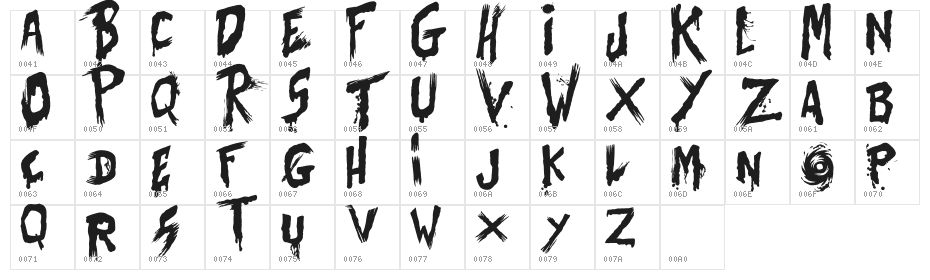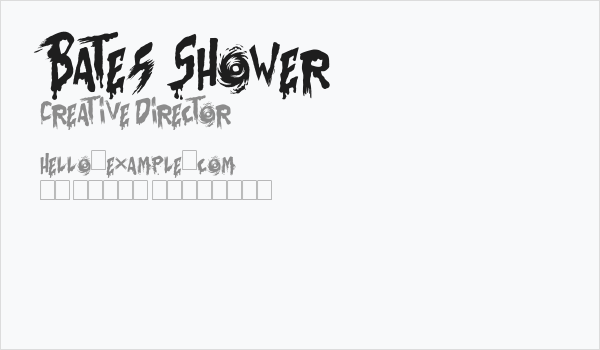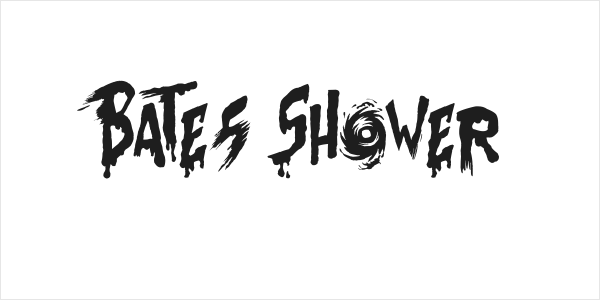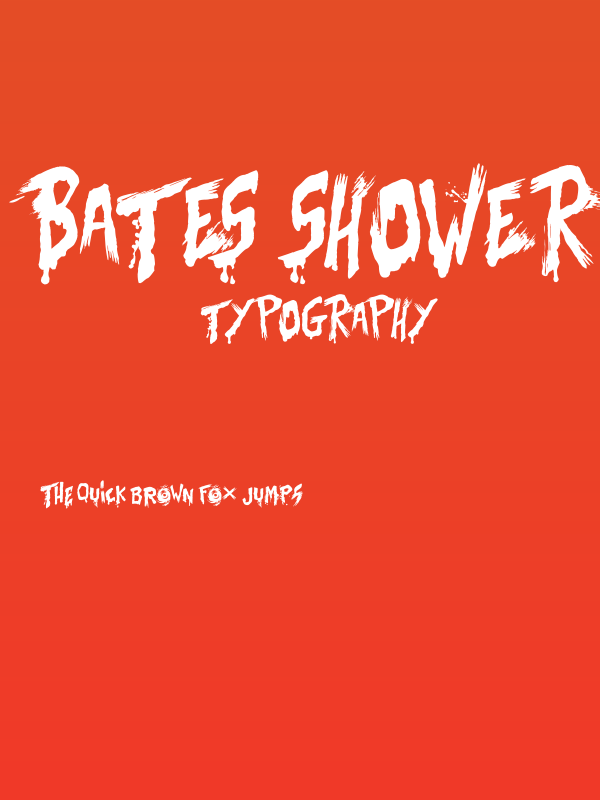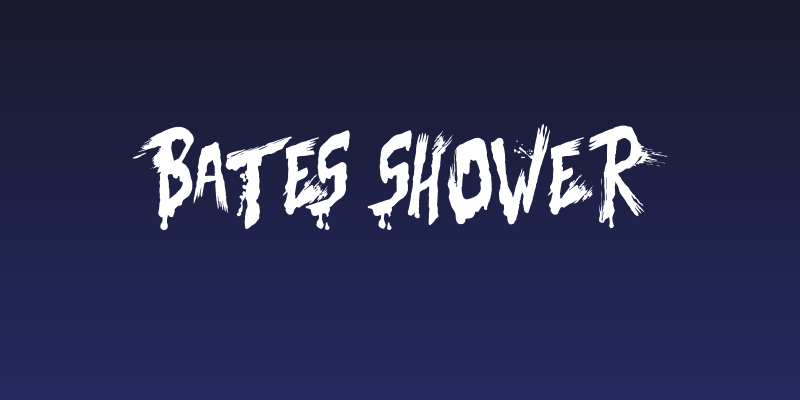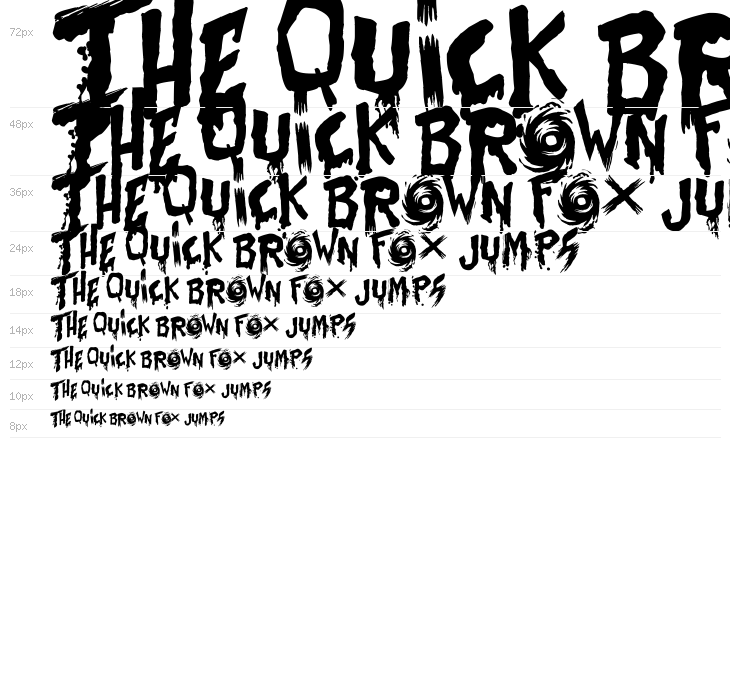
Bates Shower Font
Bates Shower Description
This font exhibits a bold, jagged, and distressed appearance, reminiscent of horror or thriller themes. The characters are irregular and appear as though they have been scratched or painted with a rough brush, giving them a dynamic and chaotic feel. The uppercase and lowercase letters share a consistent style, with exaggerated strokes and uneven edges, enhancing the font's dramatic and unsettling aesthetic. The numbers and special characters follow the same design principles, ensuring a cohesive look across all elements. This font's unique style makes it particularly suitable for projects that require a sense of urgency or intensity.
| Use Case | Headlines, Posters, Logos |
| Proposed Projects | Ideal for horror movie posters, Halloween event flyers, thriller book covers, and any design needing a dramatic, intense feel. |